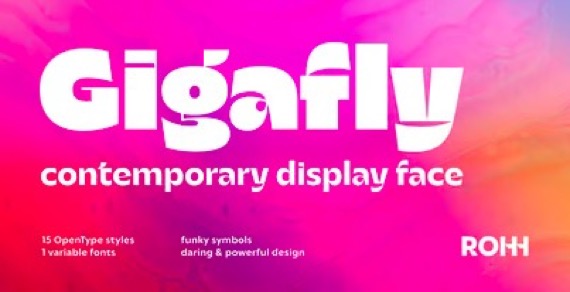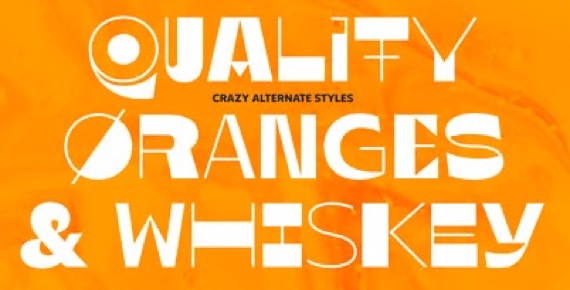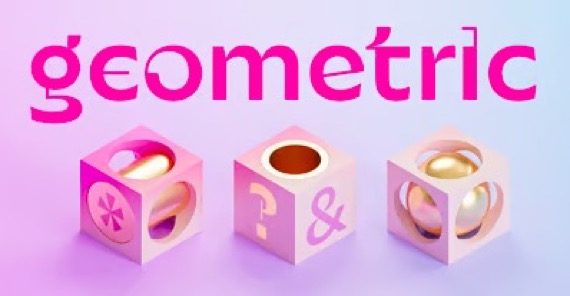
Gigafly is a trendy and delicate display font family was designed by Roch Modrzejewski and published by ROHH. Gigafly contains 16 styles and family package options.
Gigafly™ is a contemporary high-contrast sans-serif display typeface designed for branding and impactful posters. The family features very modern and sharp design language, opening a world of lively compositions full of strength, energy and movement. Its playful contrast makes it stand out from the crowd and gives it a unique type of cheerful elegance.
Gigafly features lots of stylistic alternates, allowing to create a collage-like, dynamic compositions by mixing the styles and weights of the letters. To make things even more fun, the family contains a set of quirky icons that will inject even more personality into your designs (do not miss out on the super cool manicules!).
The family is very powerful, extravagant, playful, yet it manages to keep its elegance – it can be more calm, measured and simple when needed as well. It has a vibe of modern, crisp sans-serif as well as fashion magazine type didone.
The full family consists of 15 OTF fonts – 5 weights in 3 different optical sizes for headlines, display sizes and big posters. The family offers a 2-axis variable (weight and optical size) font that contains every style and gives even more flexibility and versatility.
Gigafly Display Font